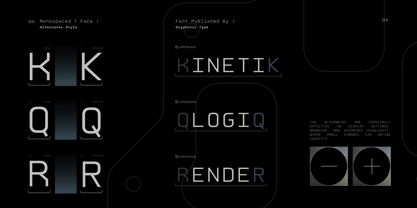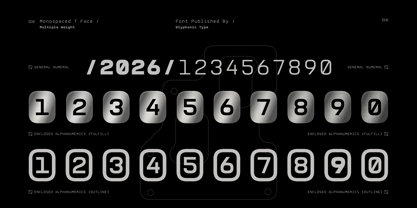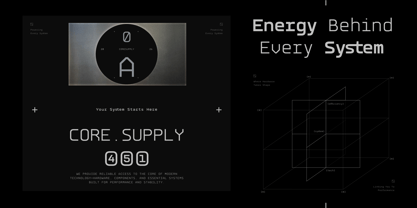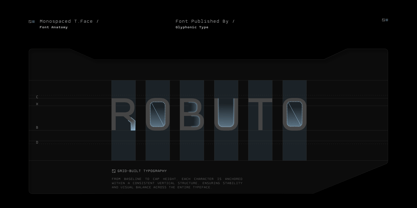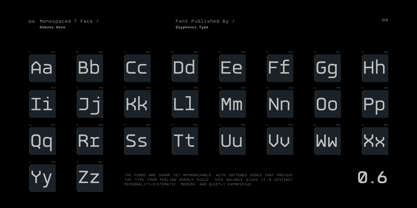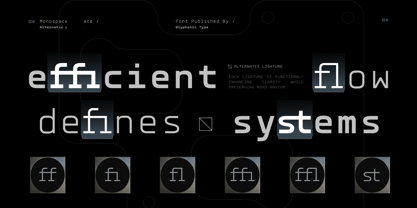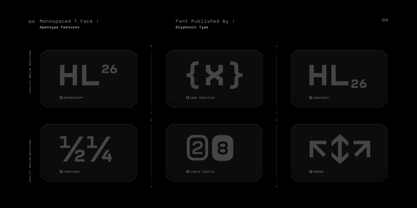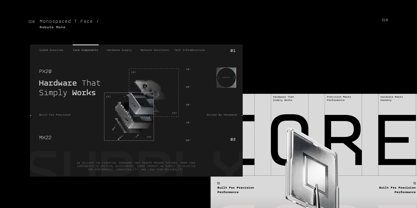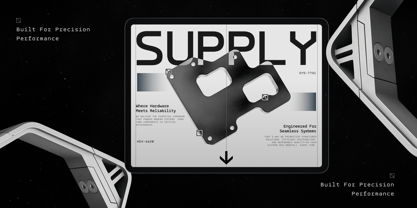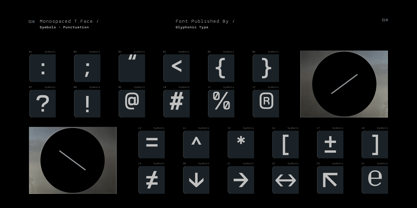
GC Robuto Mono
The GC Robuto Mono Font Family was designed by Muhammad Hafiizh Solana and published by Onyx Studio. GC Robuto Mono contains 6 styles and family package options. More about this family
GC Robuto Mono – Futuristic Monospace is a contemporary monospaced typeface designed to combine technical precision with modern elegance. Built on a structured monospace system and refined geometric proportions, Robuto Mono delivers a clean, futuristic typographic voice that feels sophisticated, balanced, and highly functional.
With its consistent character width, smooth curves, and sharp modern detailing, GC Robuto Mono creates a strong sense of order and visual clarity. The carefully crafted letterforms bring a subtle elegance to the traditional monospace style, making it suitable for both technical and creative applications.
As a variable typeface, GC Robuto Mono offers flexible weight control, allowing designers to create clear hierarchy while maintaining the uniform rhythm that defines a monospaced font. From lightweight interface typography to bold editorial headlines, the font preserves its distinctive modern character across every weight.
Crafted for digital products, technology branding, user interfaces, coding-inspired visuals, editorial systems, and contemporary design projects, GC Robuto Mono balances functionality with refined aesthetics to deliver a timeless yet future-ready appearance.
Features:
• Variable Font (Adjustable Weight Axis)
• Modern Monospace Construction
• Uppercase & Lowercase
• Numbers & Punctuation
• Futuristic Geometric Letterforms
• Consistent Character Width
• Multilingual Support (170+ Languages)
GC Robuto Mono — futuristic precision with elegant monospace clarity.